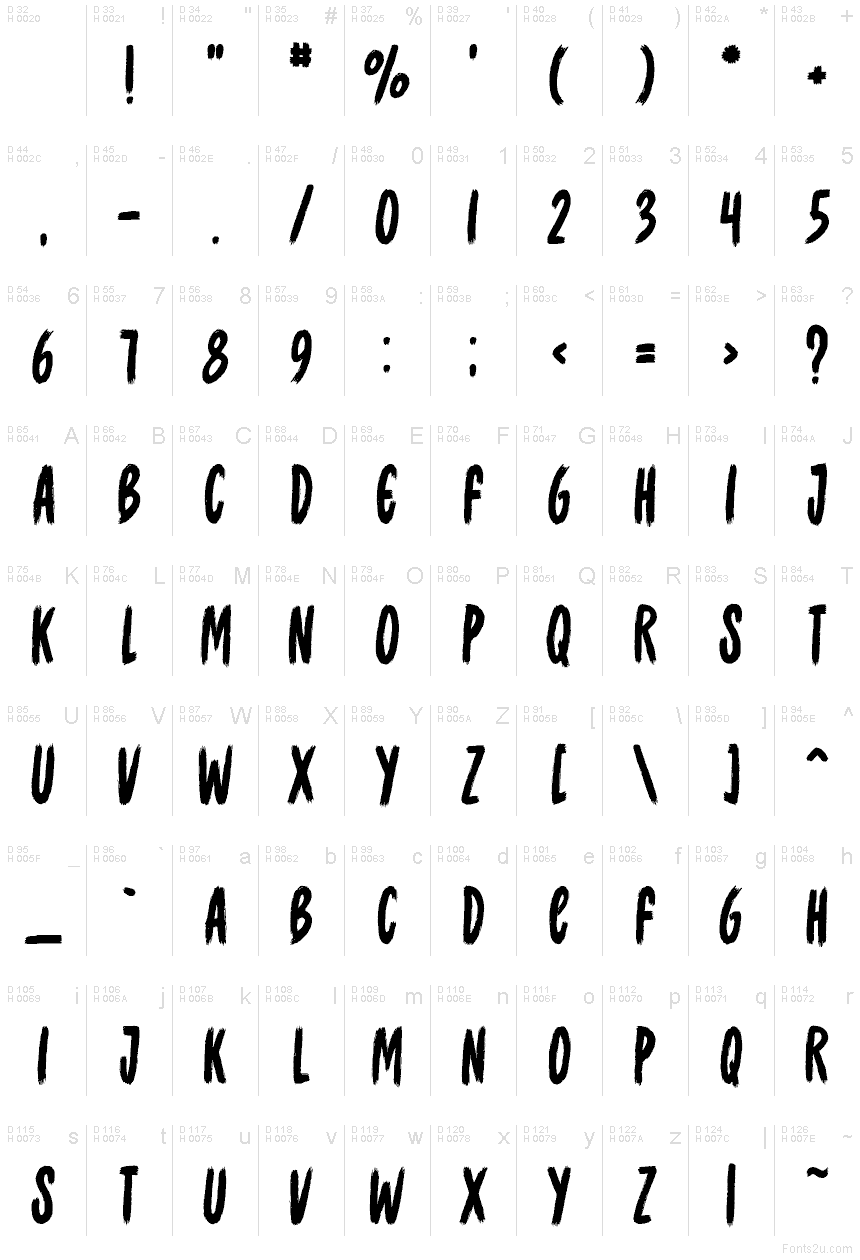
The Watcher
The Watcher font by Cat.B is a bold brush typeface with a condensed width. Its grunge style and textured appearance give an organic feel and intense mood, capturing attention with high impact. The urban aesthetic and hand-drawn look fit perfectly into modern design projects seeking stylish authenticity.